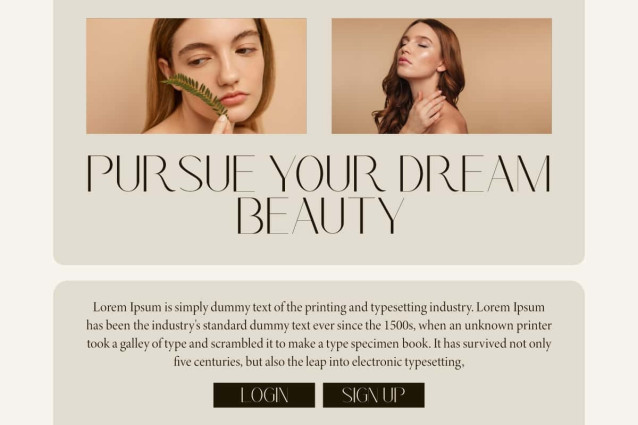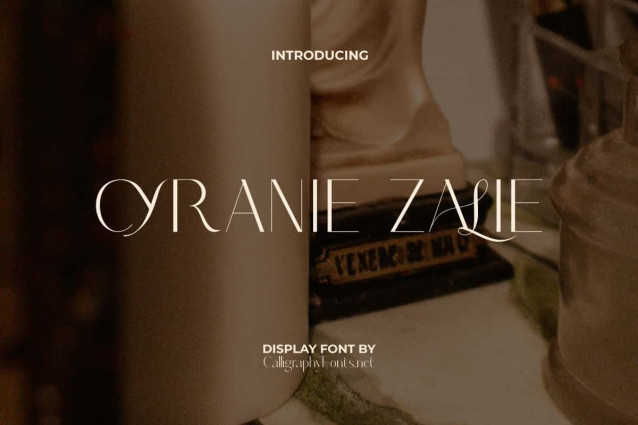
Cyranie Zalie Font
Cyranie Zalie Font is an elegant display font with beautifully curved ligature harmony. Specially designed in a modern sans serif style with a sense of timeless luxury that is versatile for dabbling in minimalist and sophisticated purposes. This font will be ideal for apps, banners, blogs, brand logo, covers, greeting cards, headers, invitations, labels, mockup, packaging, signage, signboard, stickers, template, titles, websites, and more.
Cyranie Zalie Font will be ready to add value to your brand in terms of sophistication as the premium letterforms such as the fineness of the lines or the sleek curves make it a perfect choice for classy brands hence enhancing the visual identity. Perfect for beauty product, boutique, coffee shop, cosmetologist, digital marketing, fashion, florist, home furniture, photography, publisher, restaurants, spa salon, and more.